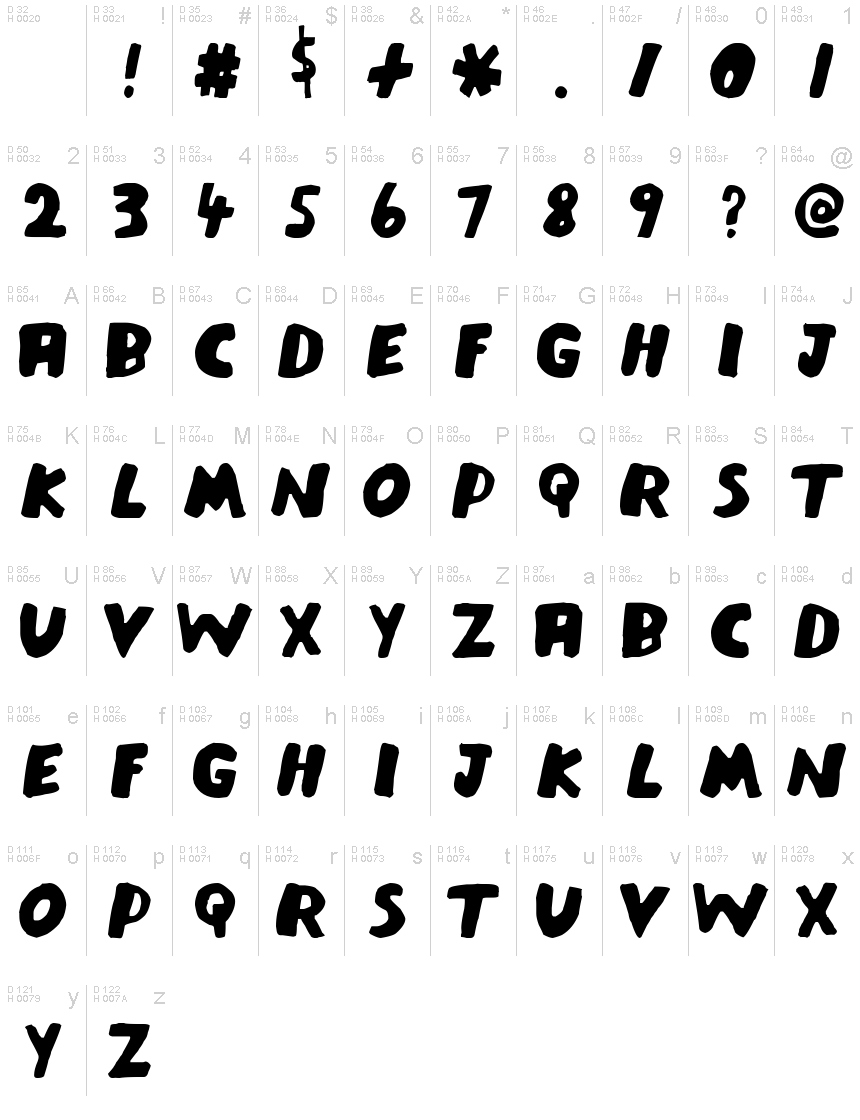
Meat Raffle is a bold, display font that exudes a sense of raw, unapologetic energy. Designed by the aptly named "I Like Fonts," this typeface commands attention with its rugged, handcrafted aesthetics. The irregular strokes and thick, uneven lines convey a gritty, almost primal quality, making it an excellent choice for logos, posters, or any design work that requires a strong, impactful visual statement. Its unique character and versatility lend themselves well to a wide range of applications, from branding for outdoor gear to event promotions with a rebellious edge.
Its bold, confident presence makes it a standout choice for headings, while its legibility at larger sizes ensures it can be effectively used for titles and eye-catching displays. Designers seeking to infuse their work with a touch of unapologetic, in-your-face style would do well to consider the "Meat Raffle" font as a potent addition to their typographic arsenal.
Mmm, meaty! Buy a ticket and win some sausages.
Meat Raffle